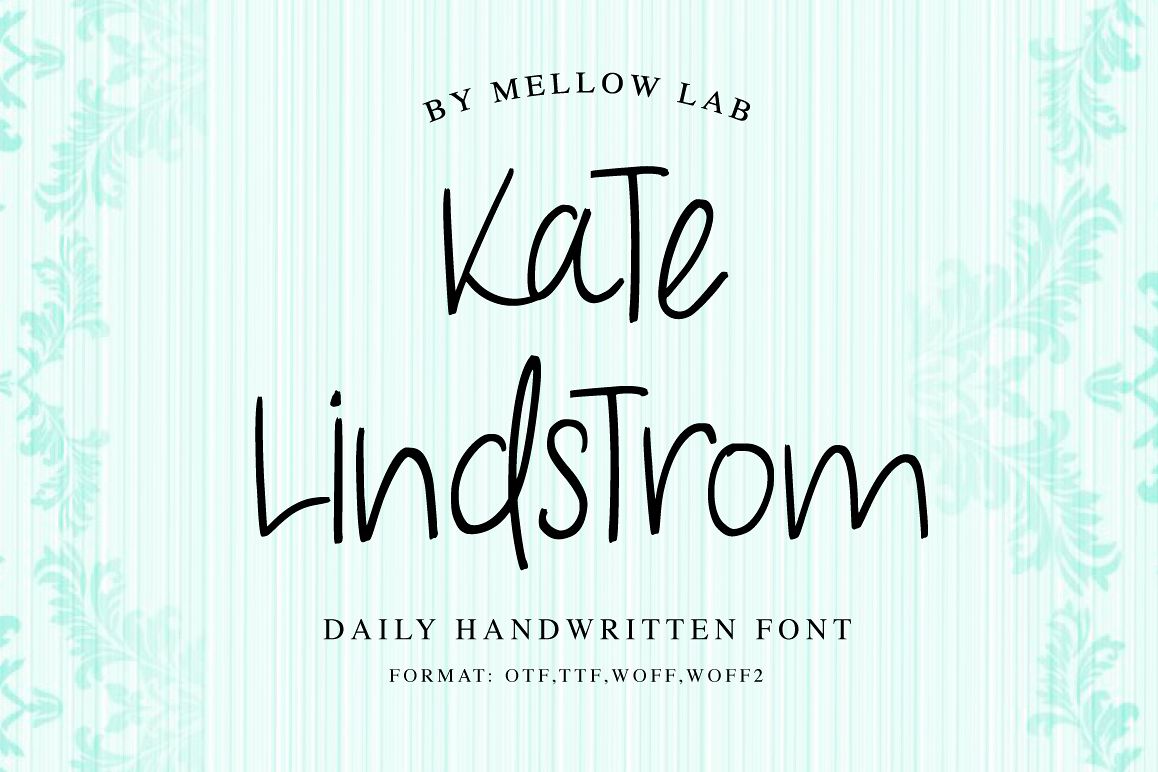
Kate Lindstrom Script
It's handwritten script. This font is ideal for branding and decorate your any project.
This font are perfect for wedding invitation or your blog. Also with their help, you can create a logo or beautiful frame for your home. Or just use for your small business, book covers, stationery, marketing, magazines and more.